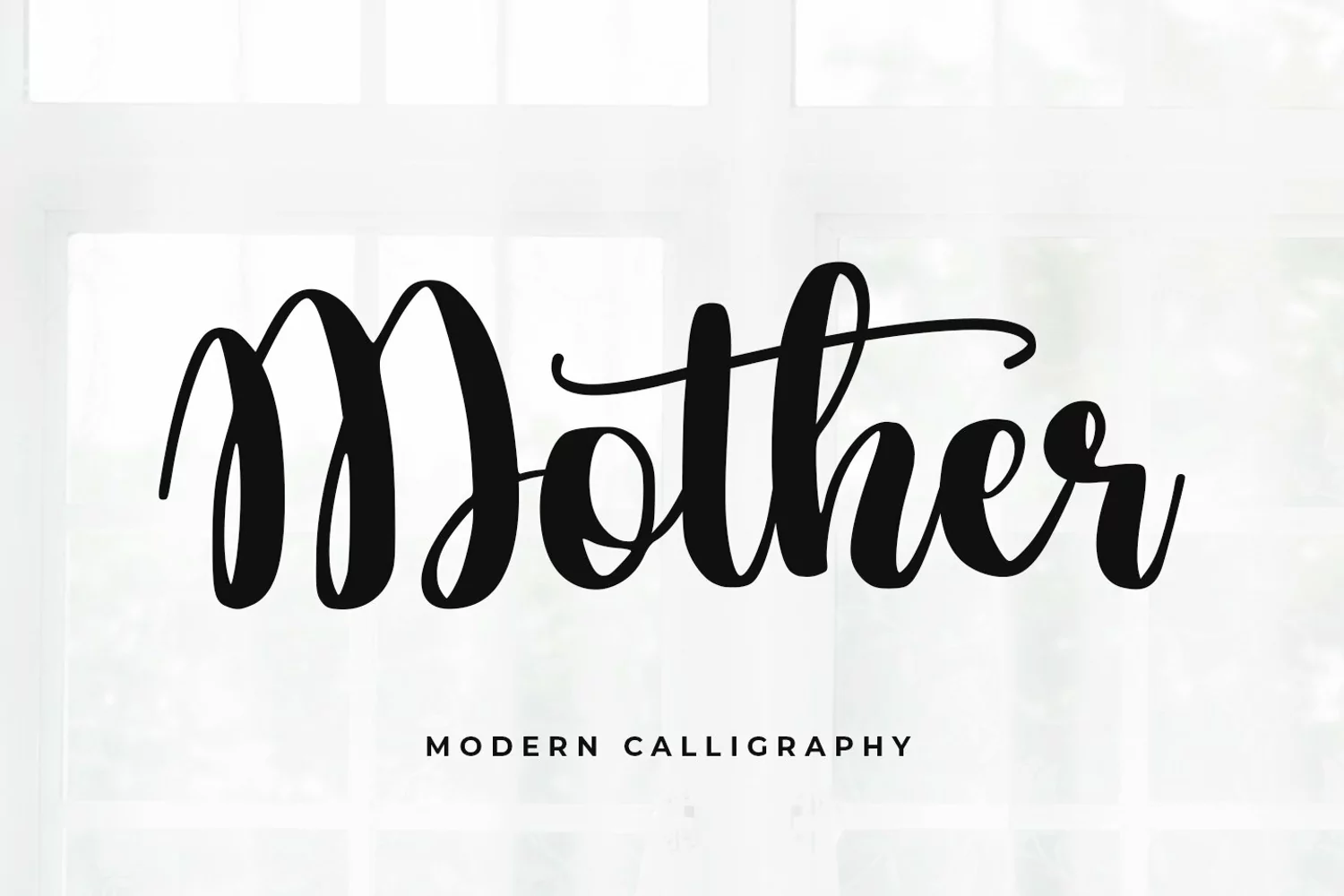
Mother
introducing
MOTHER
- modern calligraphy font-
MOTHER is cute and beautiful calligraphy font.
It is great for branding, quotes, logos, t-shirt designs, tote bag designs, cards, banners, social media, and more.